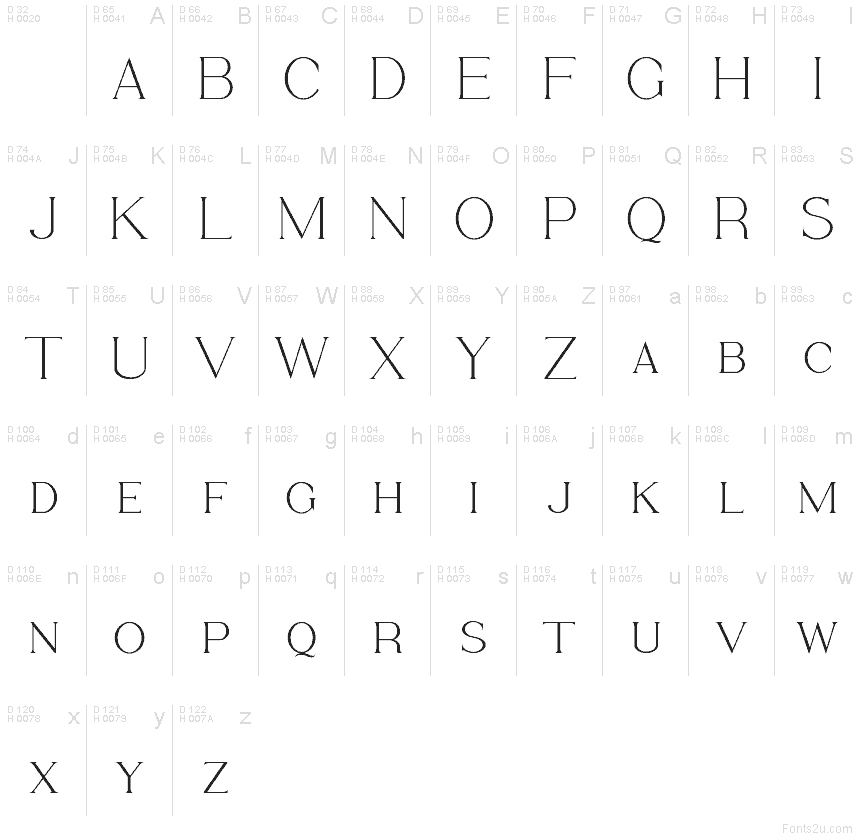
Brethen
Brethen font by Typebae Foundry is an expanded serif typeface whose facets capture a sophisticated vibe. It is characterized with expanded letter constructions which grant the font even more prominence for the best visual impact. While showing traditional influences, Brethen remains fresh and dynamic, flexible enough to breathe style in any project.
A classic form of expression is guaranteed if used for web & app pages, monographs, business cards, reports, booklets, records covers typography, promotional materials etc. Get creative with this free serif font and experience professional results like never before!